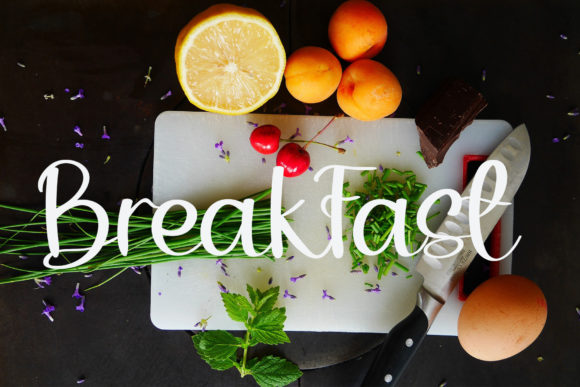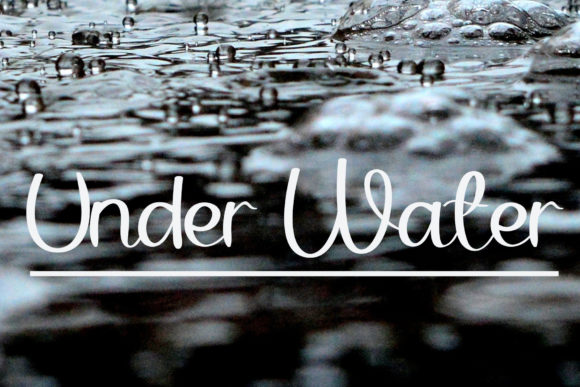
Sunday Rain Font
db-ku.com - Script & Handwritten -- Sunday Rain is a sweet and cursive handwritten font. This gentle font will look gorgeous on a variety of design ideas. It will add a joyful and romantic touch to each of your projects!